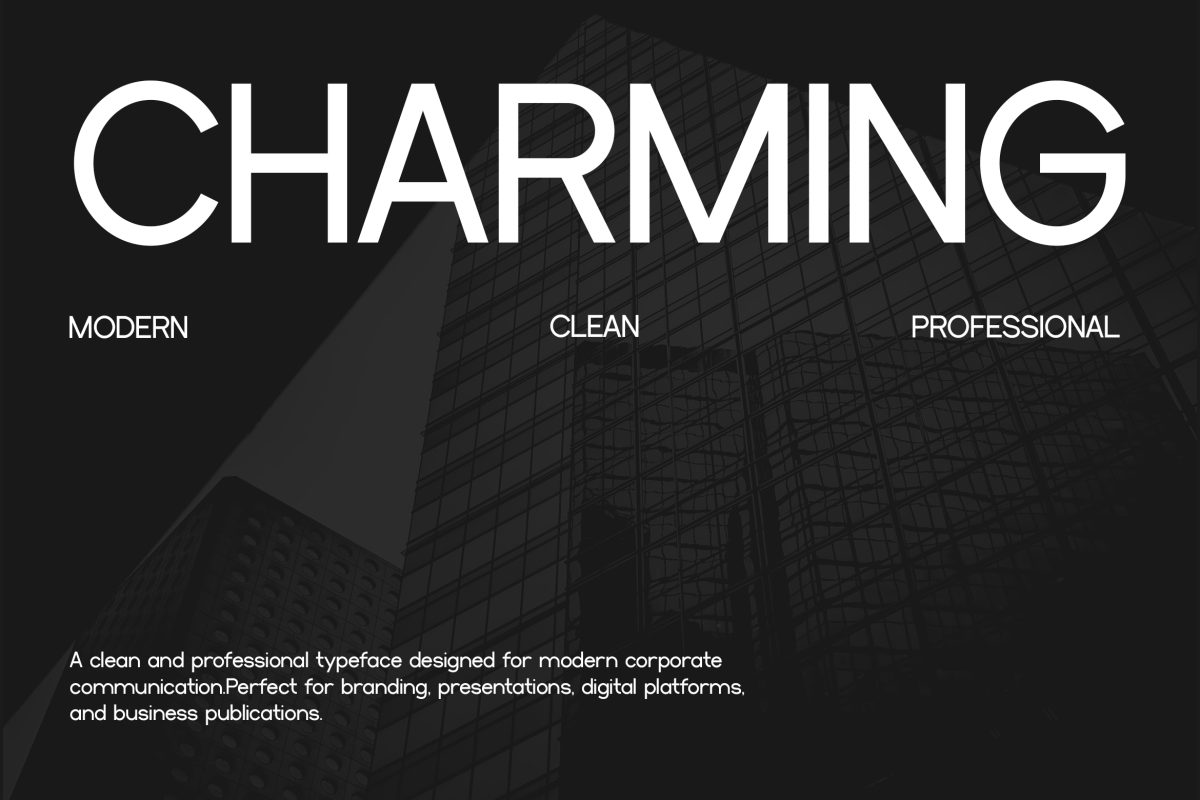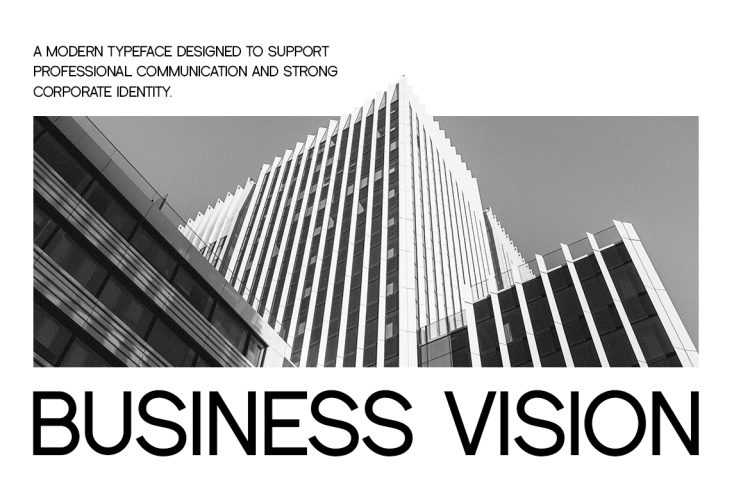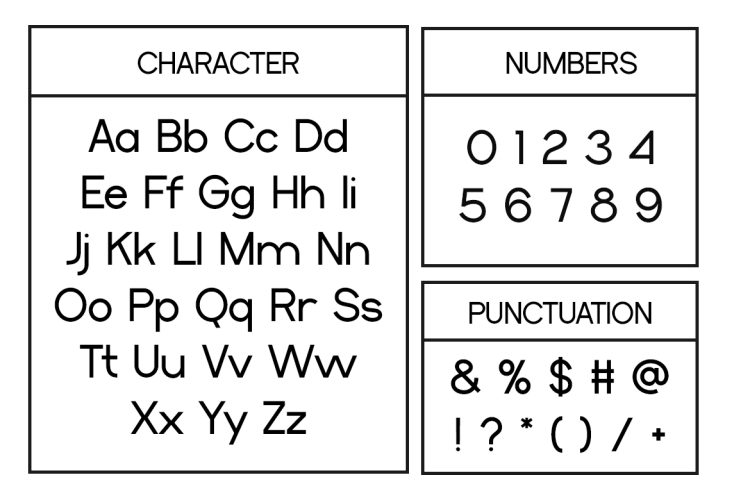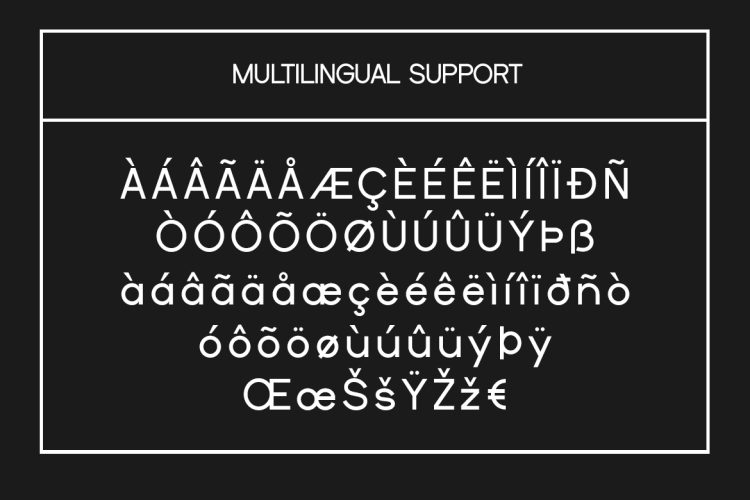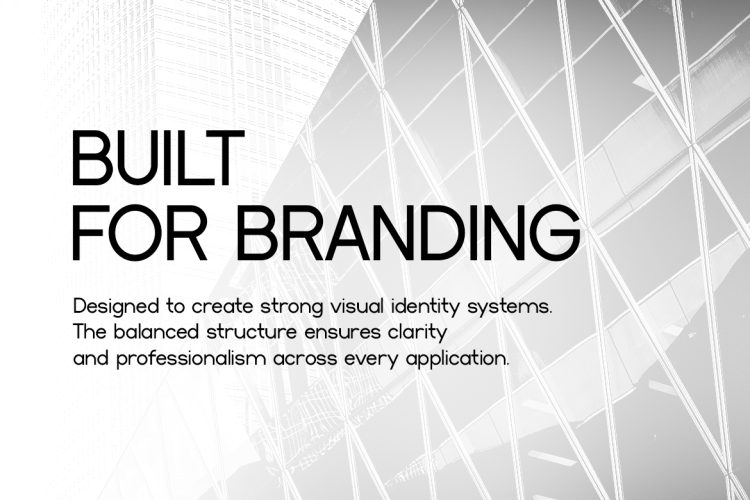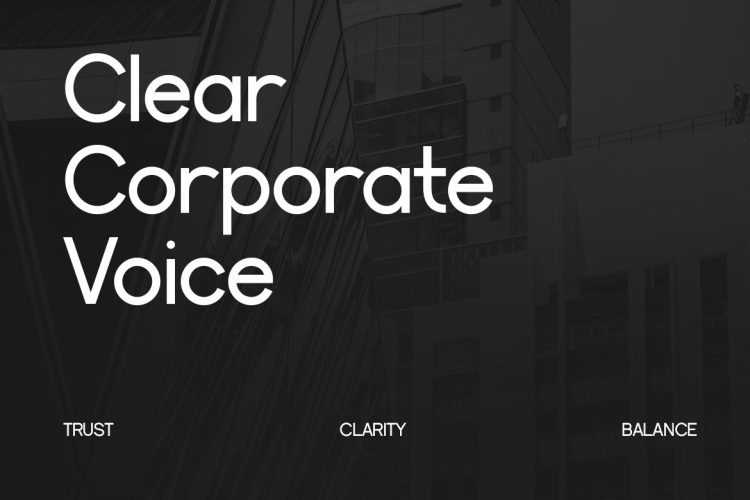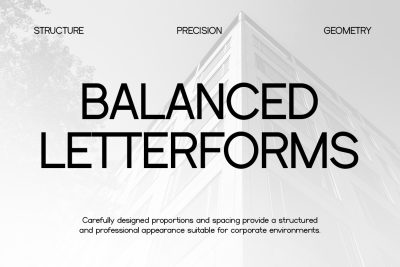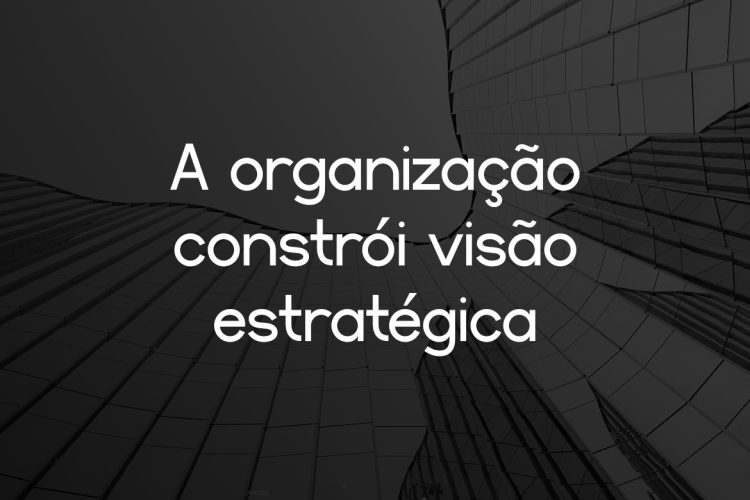
Modern Font Charming
Charming
Charming โ€“ Clean Power for Modern Branding
Modern Font Charming is a sleek and professional typeface designed to deliver clarity, balance, and modern elegance. Its clean letterforms and well-structured geometry create a refined visual style that feels confident and sophisticated. Because of its minimalist construction, the font communicates professionalism while remaining visually engaging. As a result, headlines appear strong, organized, and highly readable. Moreover, the balanced proportions ensure a polished typographic rhythm across layouts. This design approach makes the font perfect for modern corporate communication and contemporary brand identity systems. In addition, the font supports 67 languages, allowing designers to build consistent global branding with ease.
Modern Font Charming combines modern simplicity with strong typographic structure. Each character is carefully crafted with precise spacing and balanced proportions. Therefore, the font delivers excellent readability while maintaining a clean and professional look.
Furthermore, Modern Font Charming works beautifully in projects that require clarity and credibility. For example, it performs perfectly in corporate branding, editorial layouts, modern presentations, and professional marketing materials. At the same time, its minimalist aesthetic allows it to adapt to both digital interfaces and print designs. Because of this versatility, designers can confidently use it for strong headlines, corporate identity systems, and structured typography compositions.
Modern Font Charming is ideal for graphic designers, branding agencies, corporate teams, and creative professionals who need a modern and professional typeface. It works especially well for corporate branding, business presentations, editorial layouts, website typography, brand identity systems, and professional marketing designs.
Modern Font Charming is a clean, professional typeface with balanced letterforms. Perfect for corporate branding, business presentations, modern logos, and editorial design.